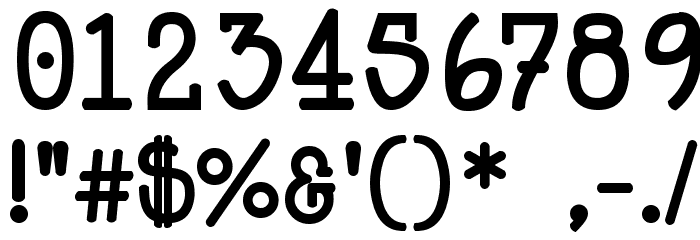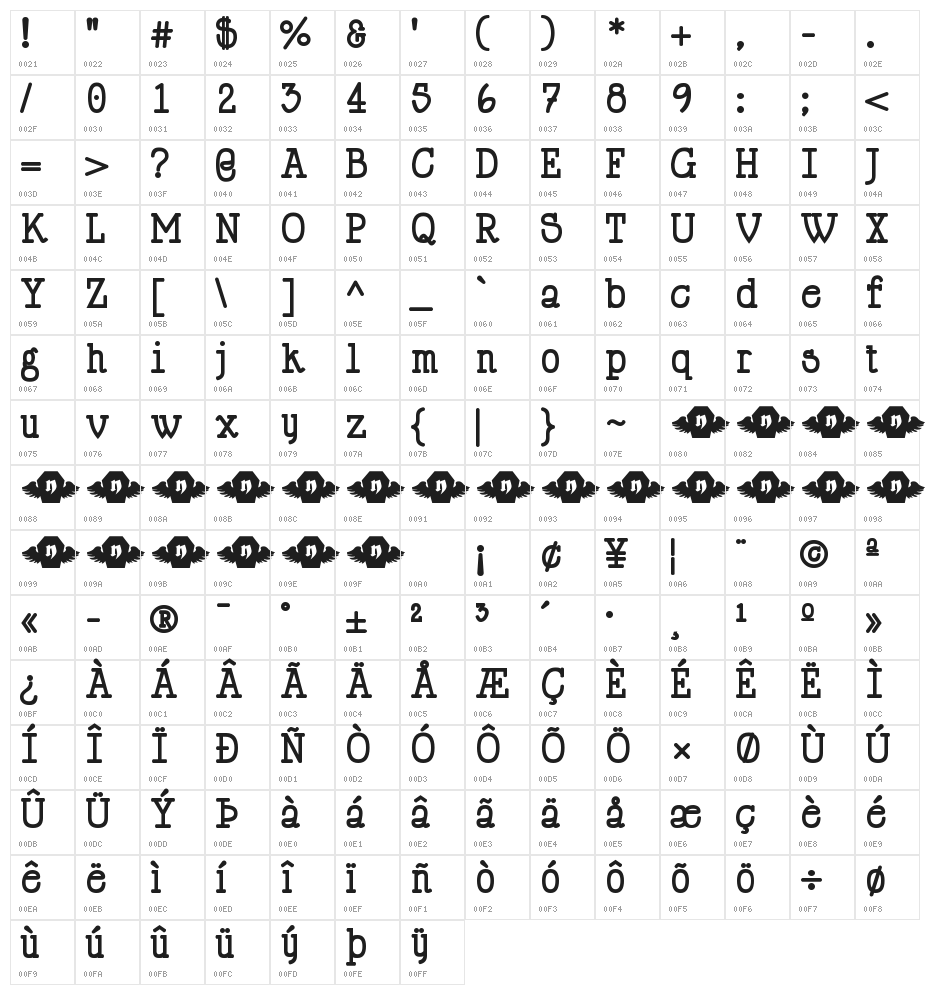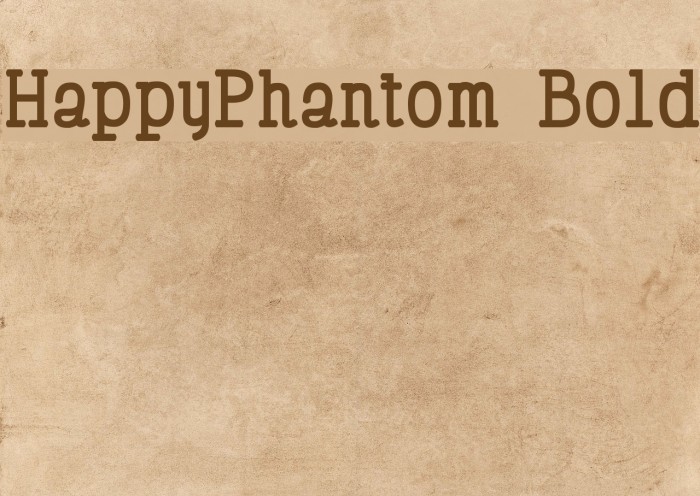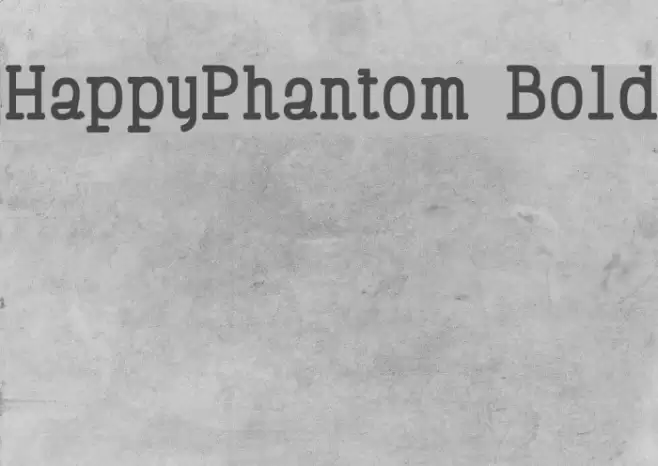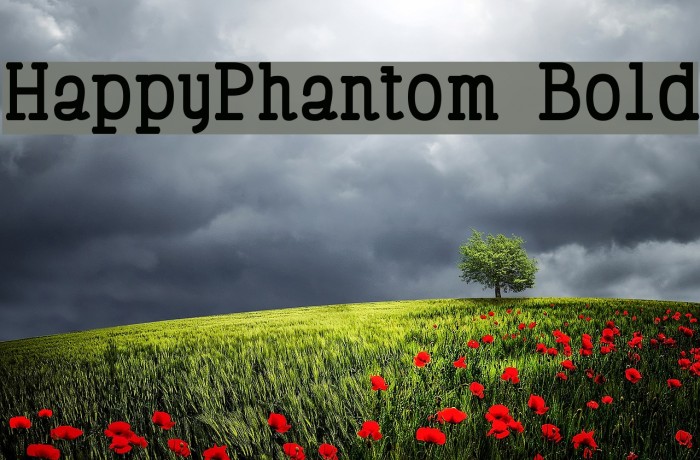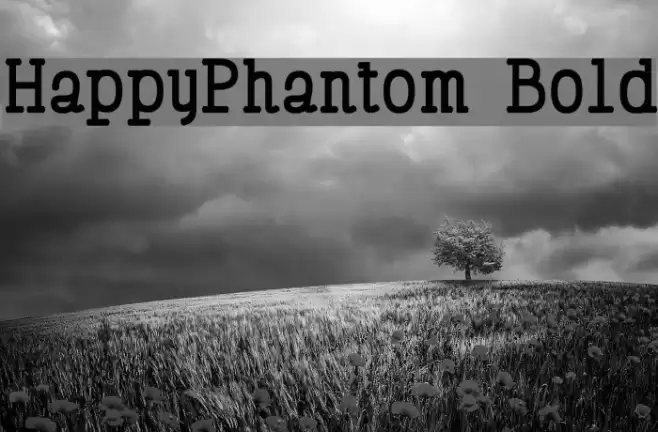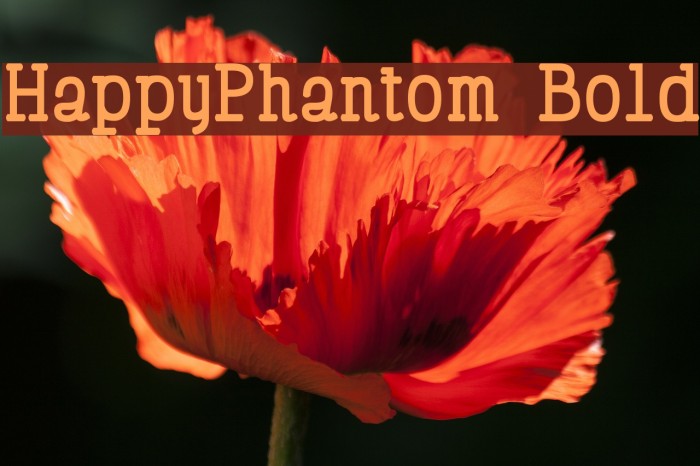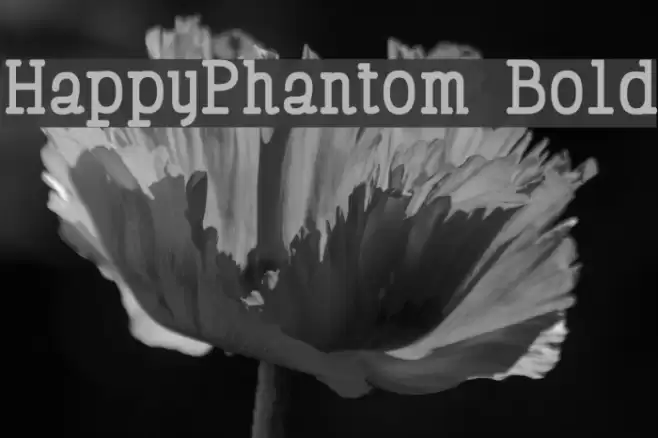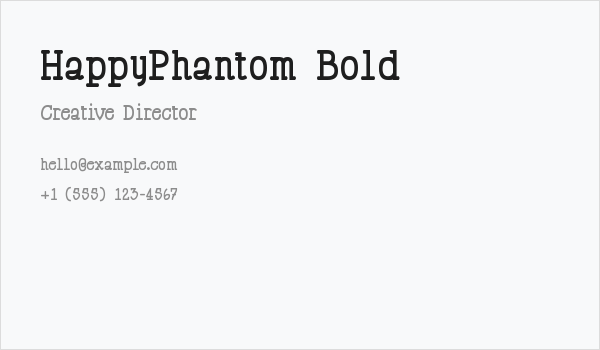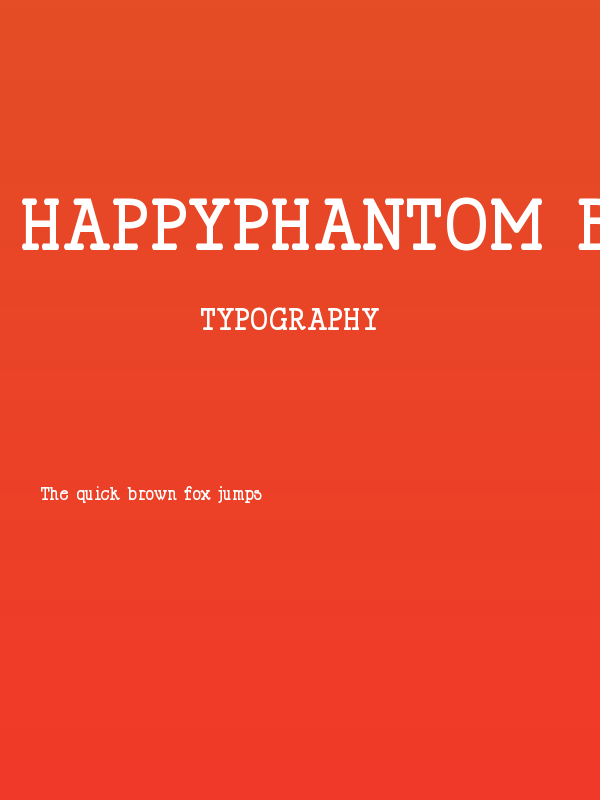
HappyPhantom Bold Font
HappyPhantom Bold Description
This font features a bold and robust design with a strong presence. The characters are well-defined with a consistent stroke width, giving it a sturdy and reliable appearance. The uppercase letters are slightly taller than the lowercase, maintaining a uniform width that ensures readability. The numerals are clear and distinct, matching the overall boldness of the alphabet. Special characters are included, providing versatility for various uses. The font's design is reminiscent of classic typewriter styles, yet it maintains a modern touch with its clean lines and balanced proportions.
| Proposed Projects | Ideal for projects requiring a strong, vintage aesthetic such as posters, headlines, branding, and packaging. |